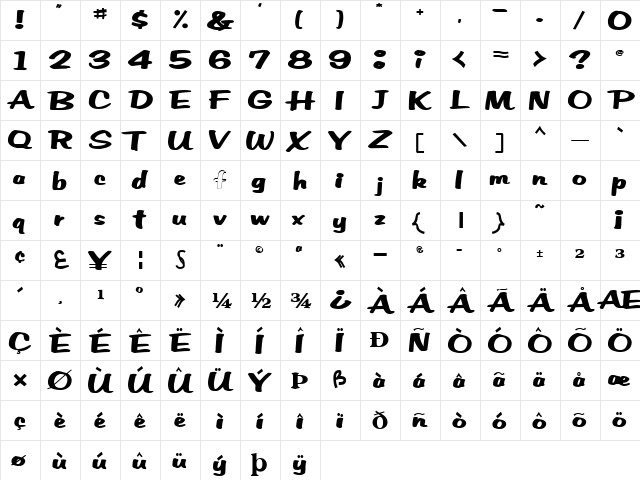
EmPower42 Bold
Design Context for EmPower42 Typeface
EmPower42 brings high-energy athletic personality to the page — its confident, muscular forms are built for impact. The heavy weight commands attention and anchors typographic hierarchies.
Built for sports team identities, athletic apparel, event posters, and high-energy promotional material.
Pro Tip: EmPower42 thrives on contrast — try it large, bold, and tight against a clean background for maximum visual impact.